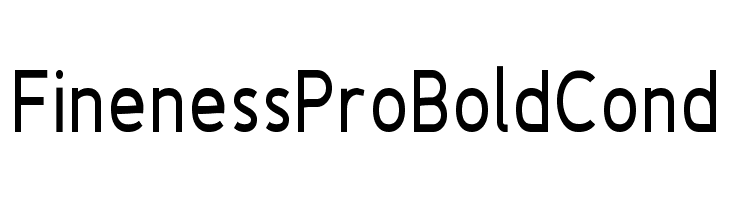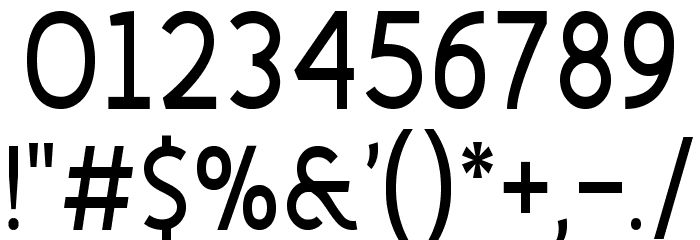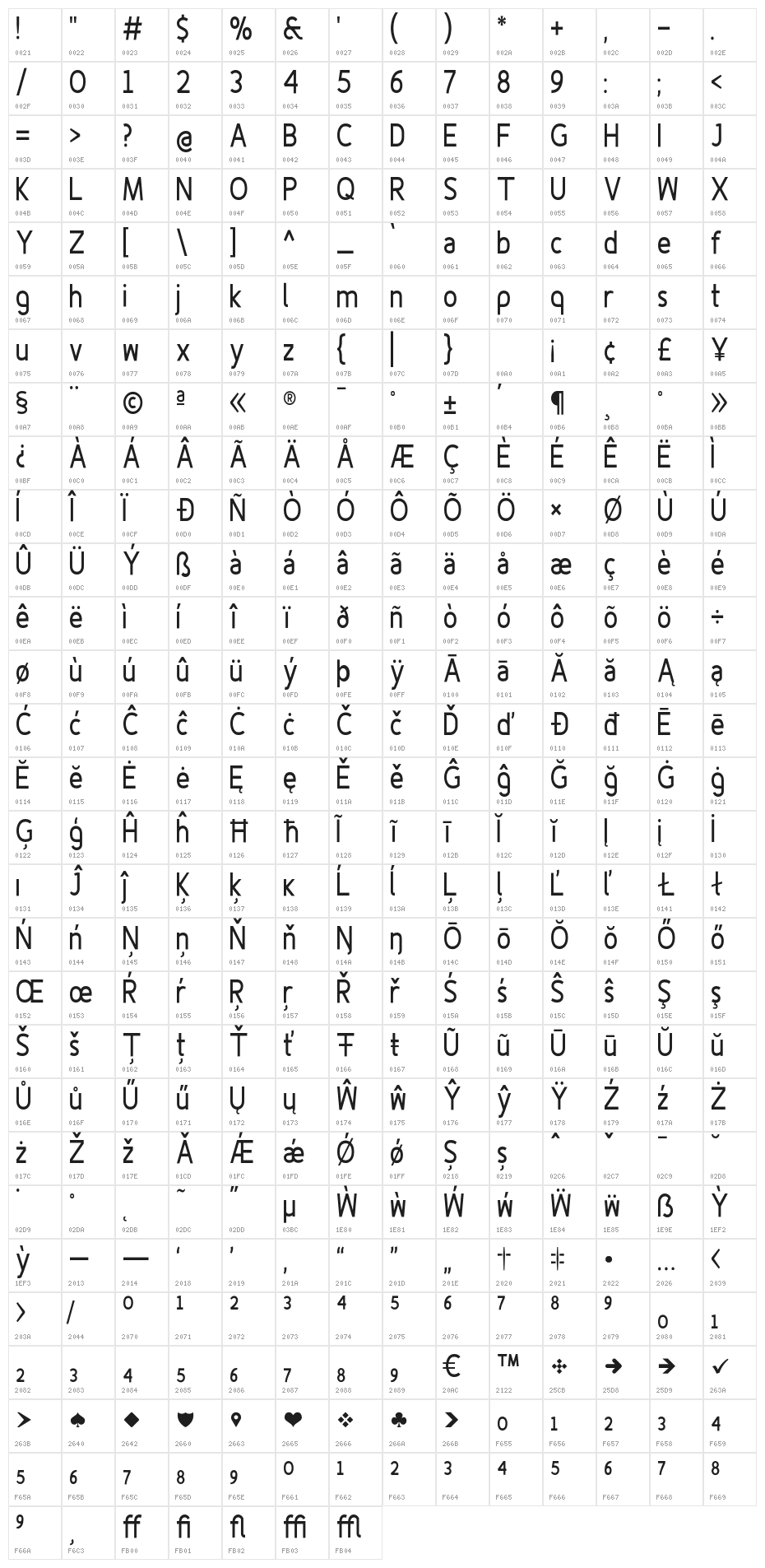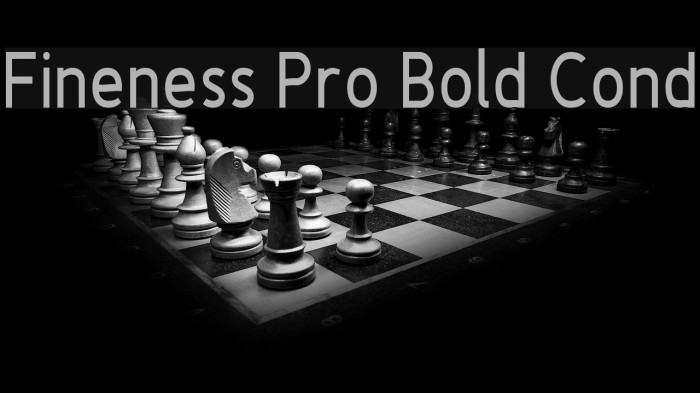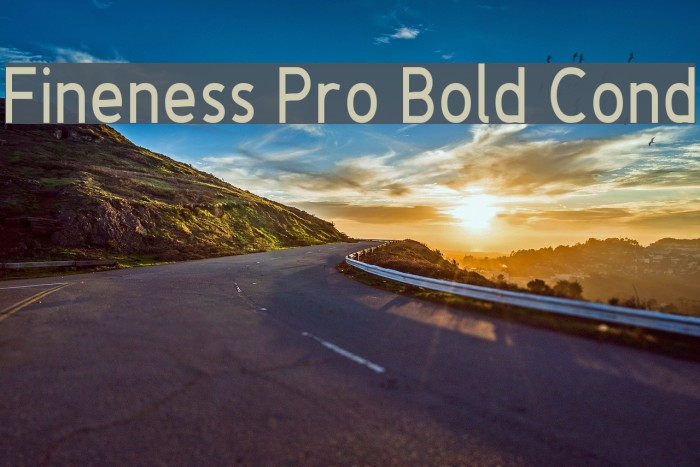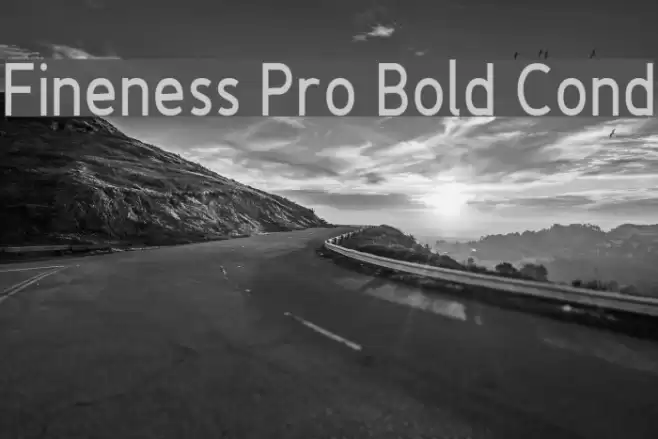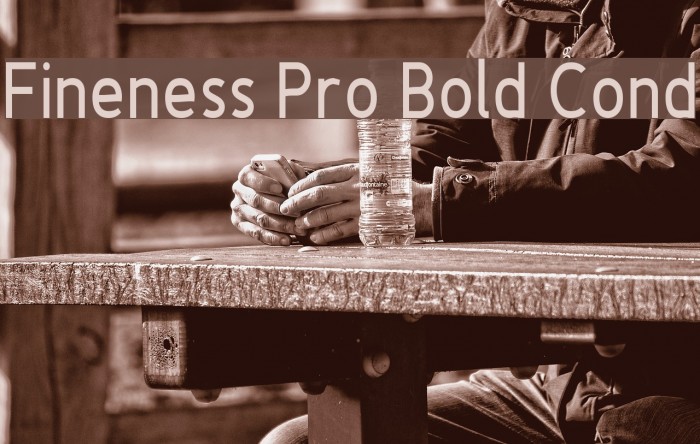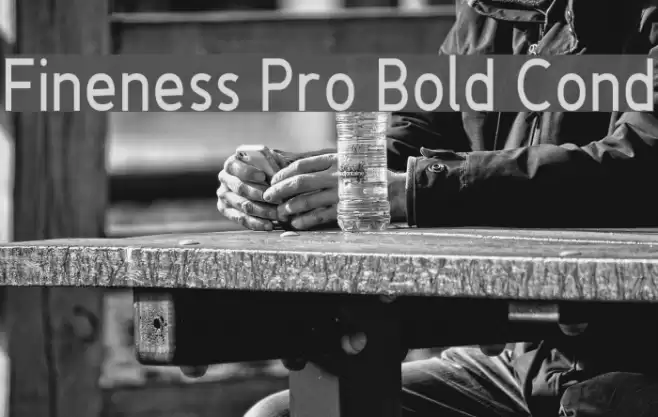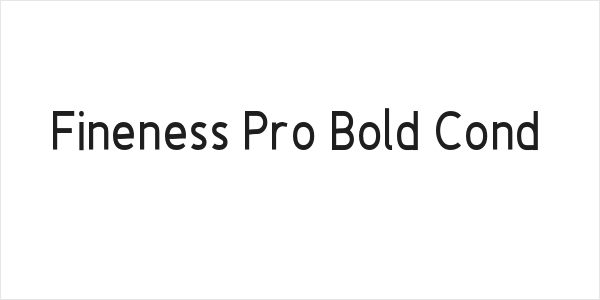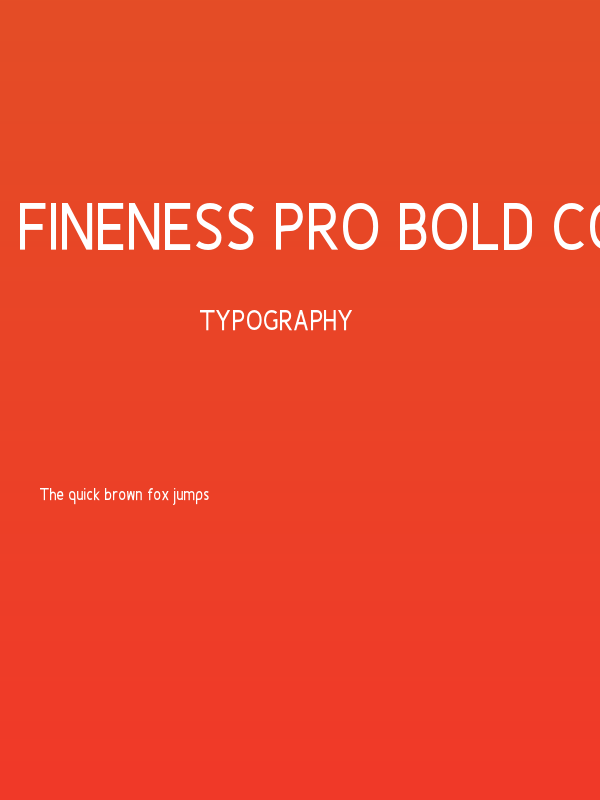
Fineness Pro Bold Cond Font
Fineness Pro Bold Cond Description
This font features a clean and modern sans-serif design with bold strokes that provide a strong presence. The characters are evenly spaced, contributing to excellent readability. The uppercase and lowercase letters are well-proportioned, with a consistent stroke width that adds to its uniform appearance. The numerals are clear and distinct, making them suitable for various applications. Special characters are included, maintaining the font's cohesive style. Its simplicity and clarity make it versatile for both digital and print media.
Use CaseHeadlines, Body text, Logos
Proposed ProjectsIdeal for branding, advertising, web design, and editorial projects where clarity and modernity are essential.